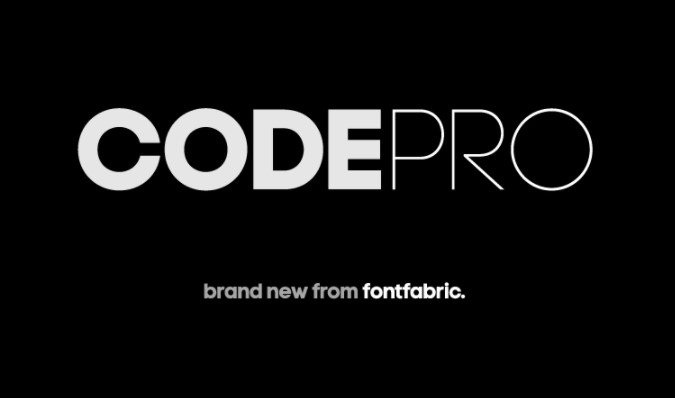
Introducing Code Pro Font that is publicly available free to use in paid projects also. The font is basically the product of the famous font foundry fontfabric which provides paid or premium fonts but with awesome features.
However, if you would like to use the font in your projects then here we are sharing the free version of this font. The font was derived from the previous famous and most loved typeface Avant Grade or Futura and designers add more features or add in this Code Pro font that is the modern, latest, and clean typeface.
This simple and elegant font that is similar to ff din font which has a popular texture so that can also be used in pairing also. That’s why each designer treated it as a really perfect font in all appreciate.
• Annual reports
• Social media ads, banners and graphics
• Posters, banners and billboards
• Title sequences and end credits
• Retail store interiors
• Images for websites and blogs
What Type of Font Is Code Pro?
The Code Pro Font is the famous and amazing typeface which was product of the popular company fontfabric.
What's the Closest Font to Code Pro?
The Quinone is very close to the Code Pro Font.